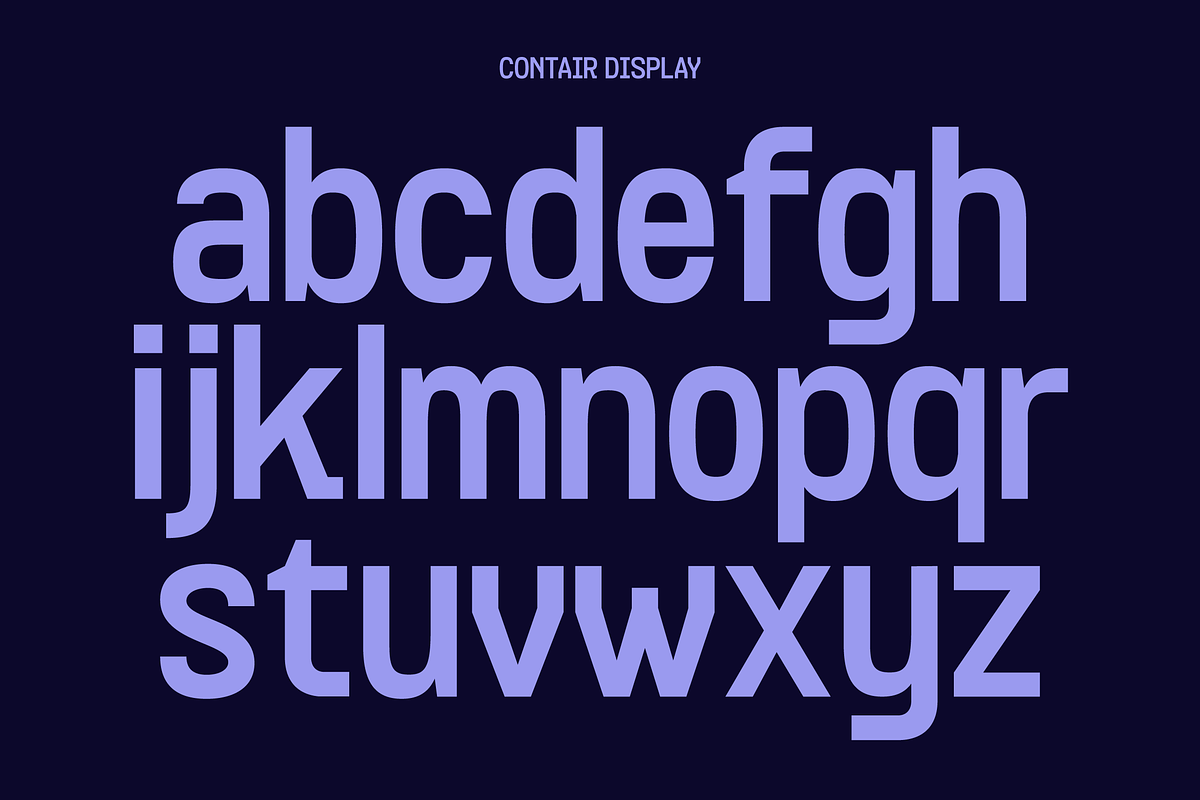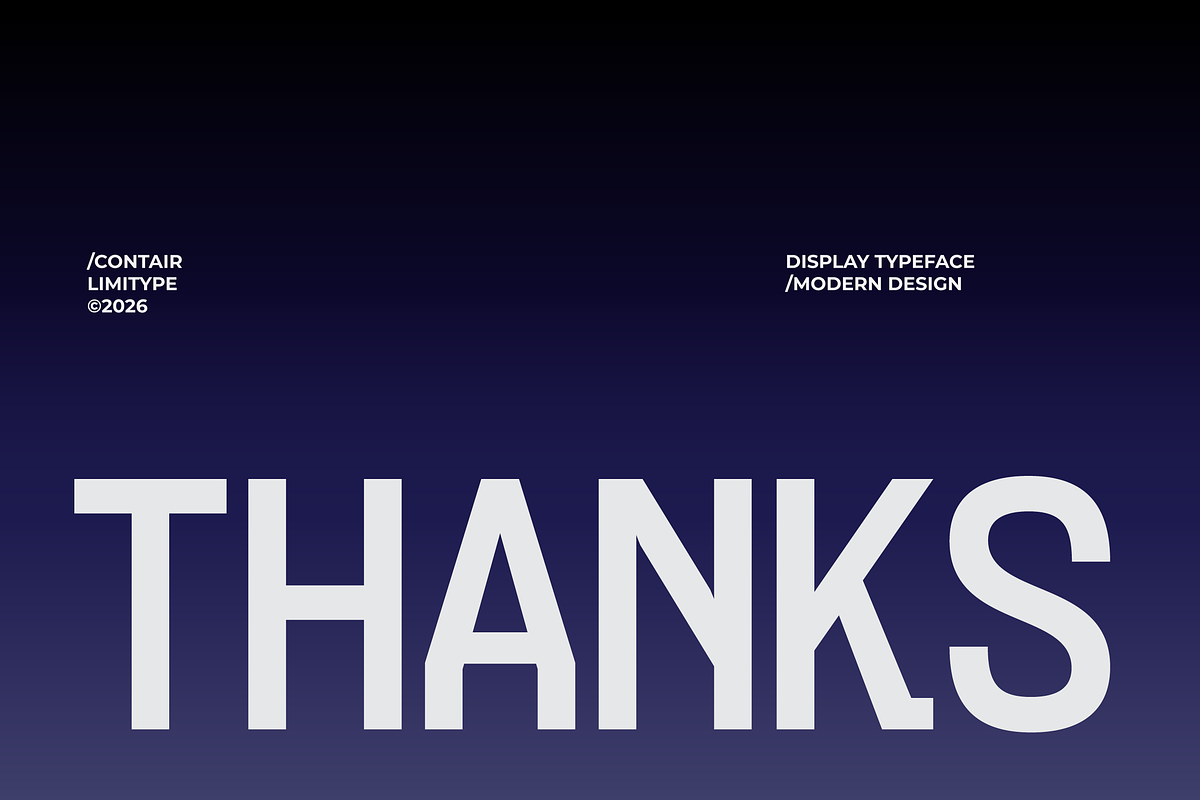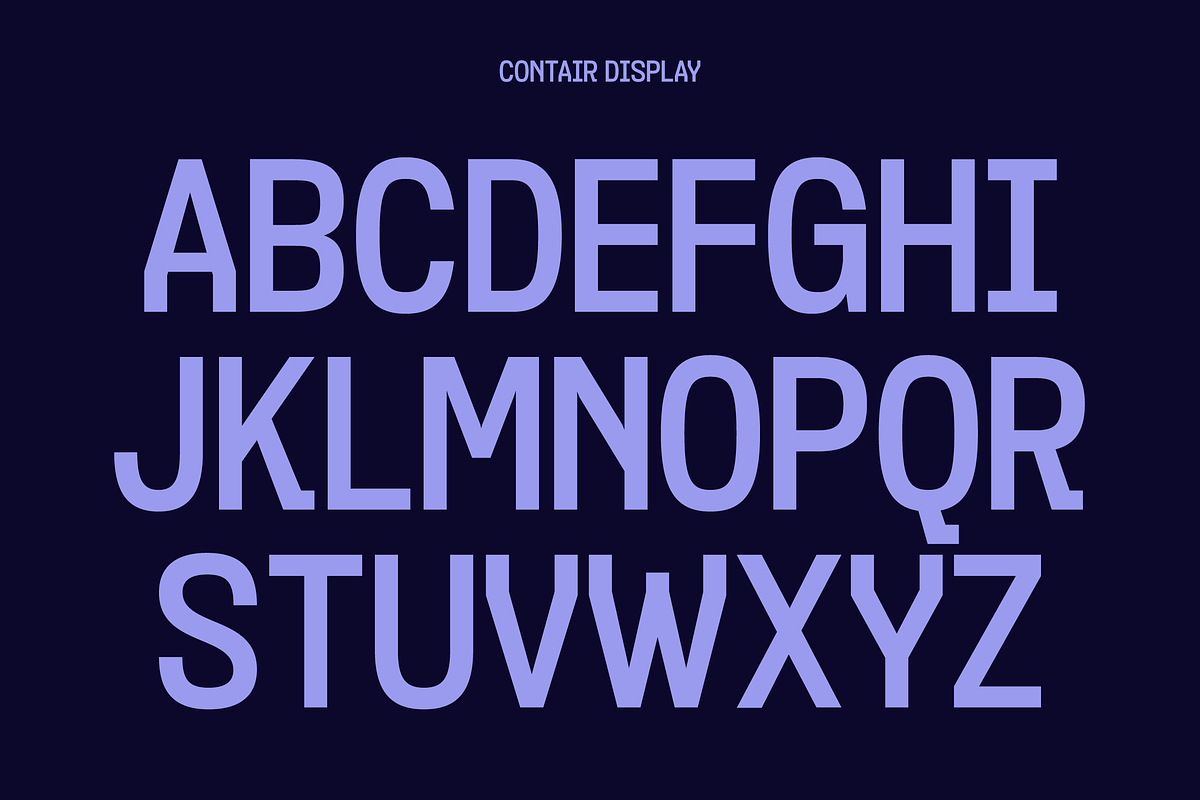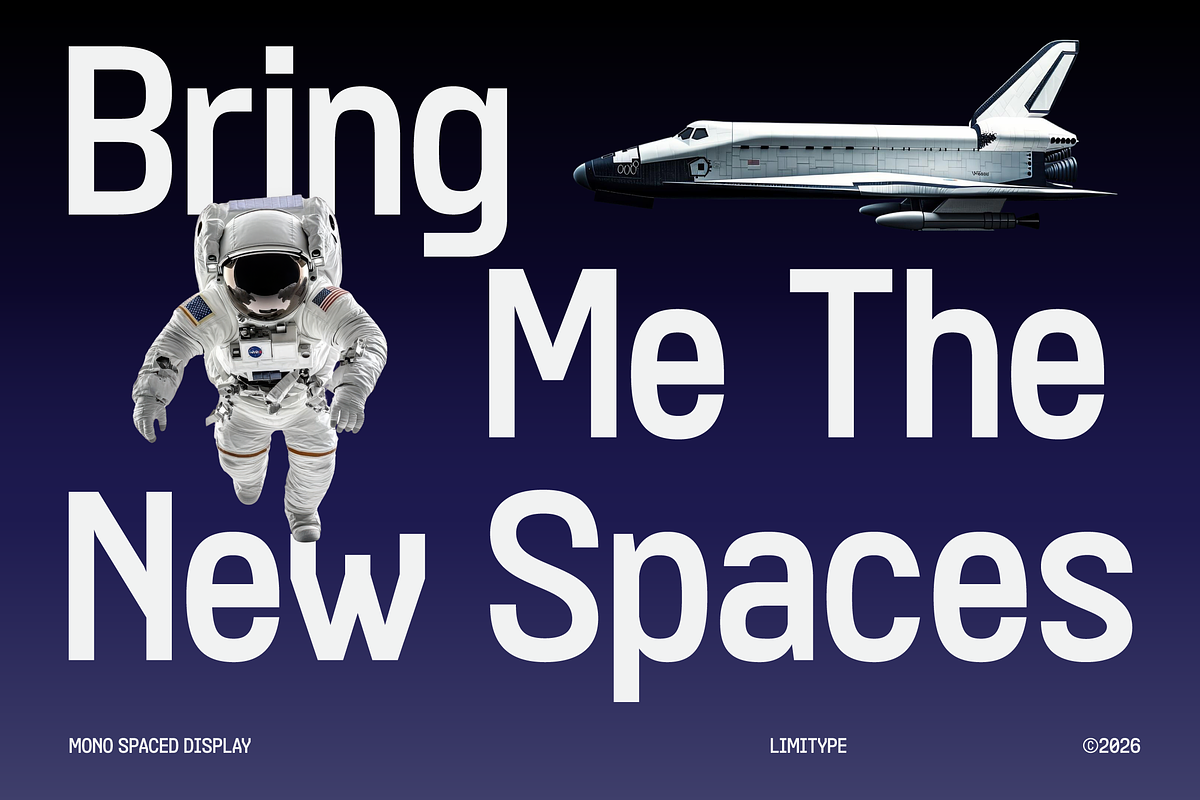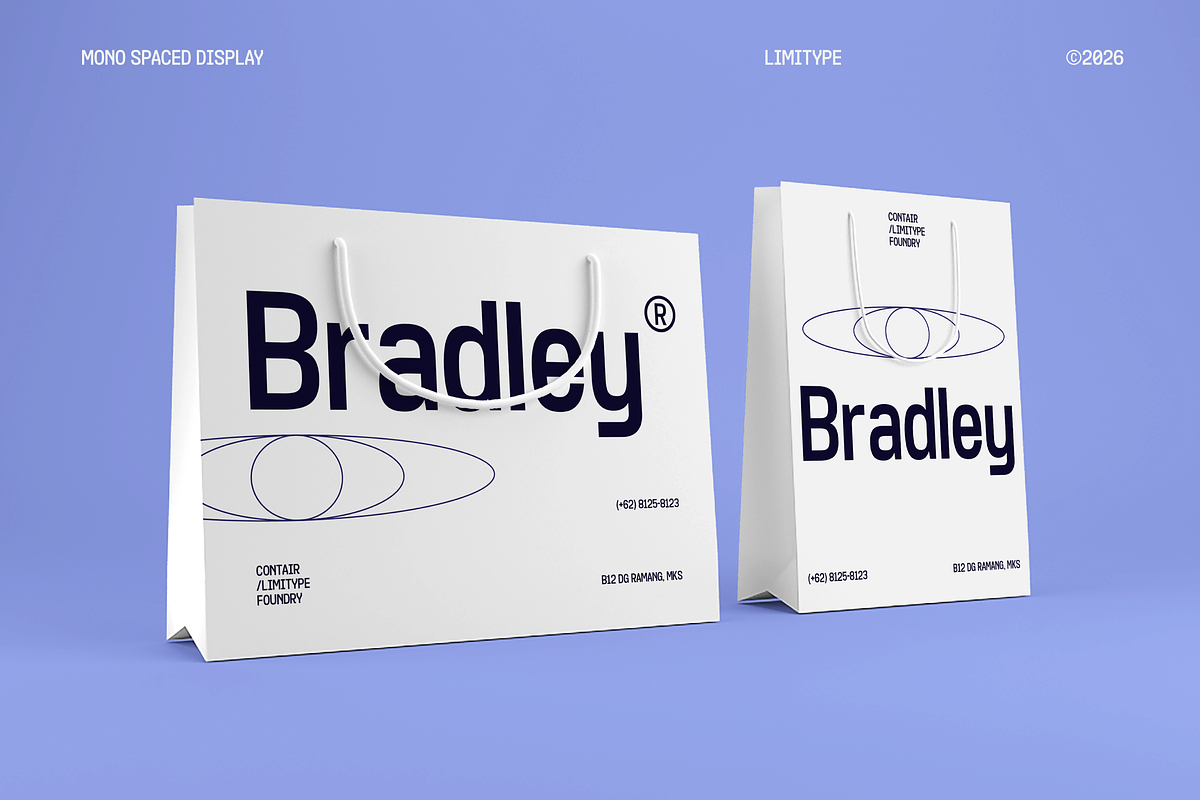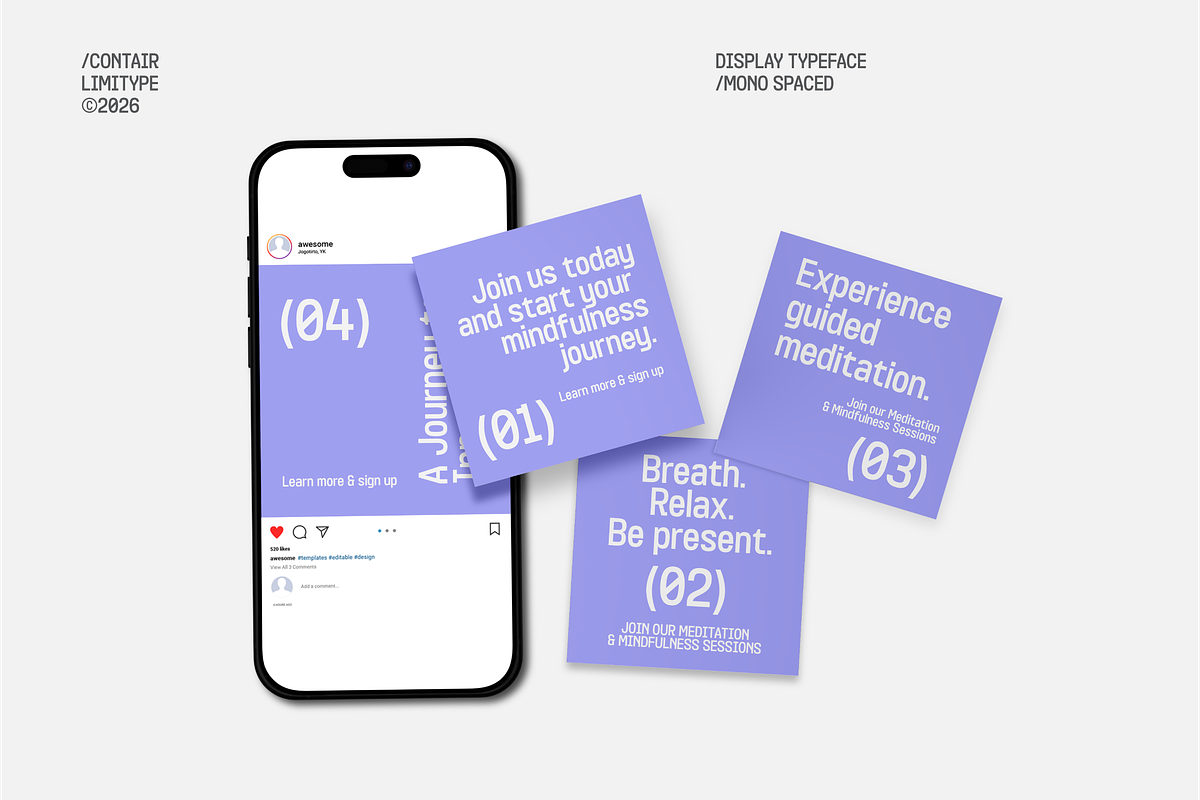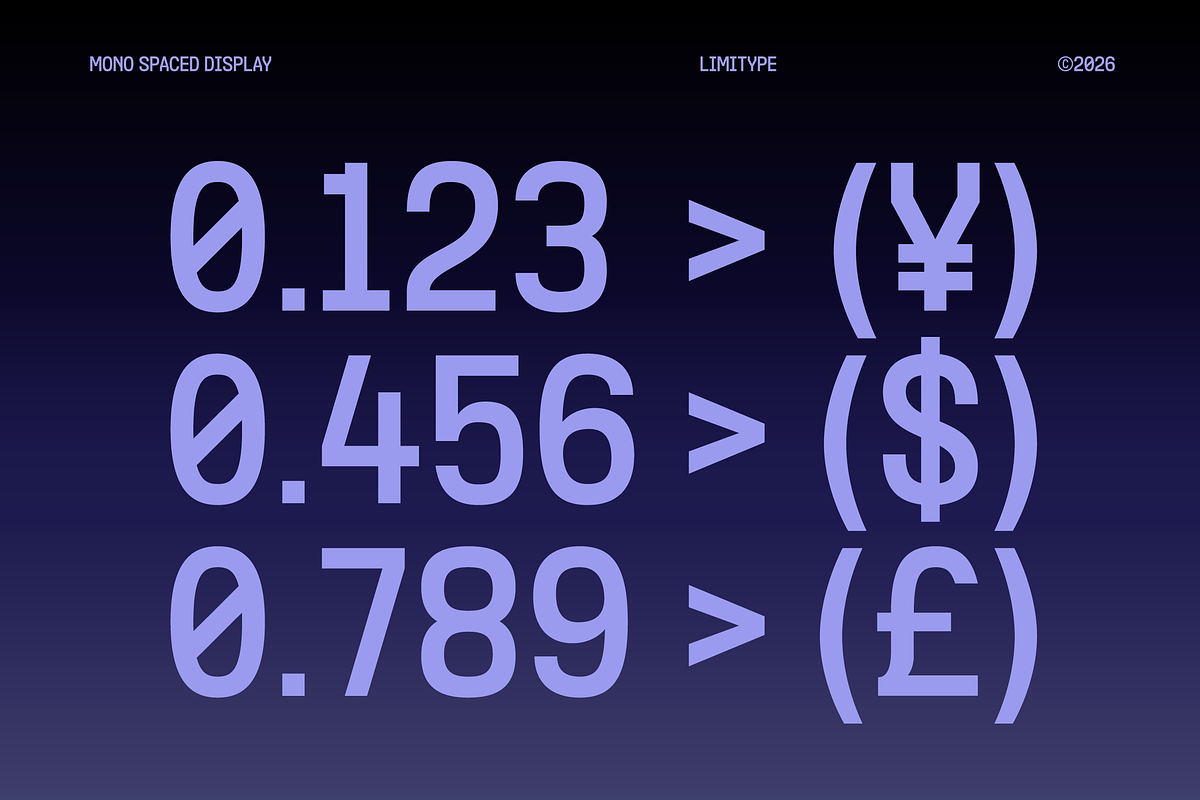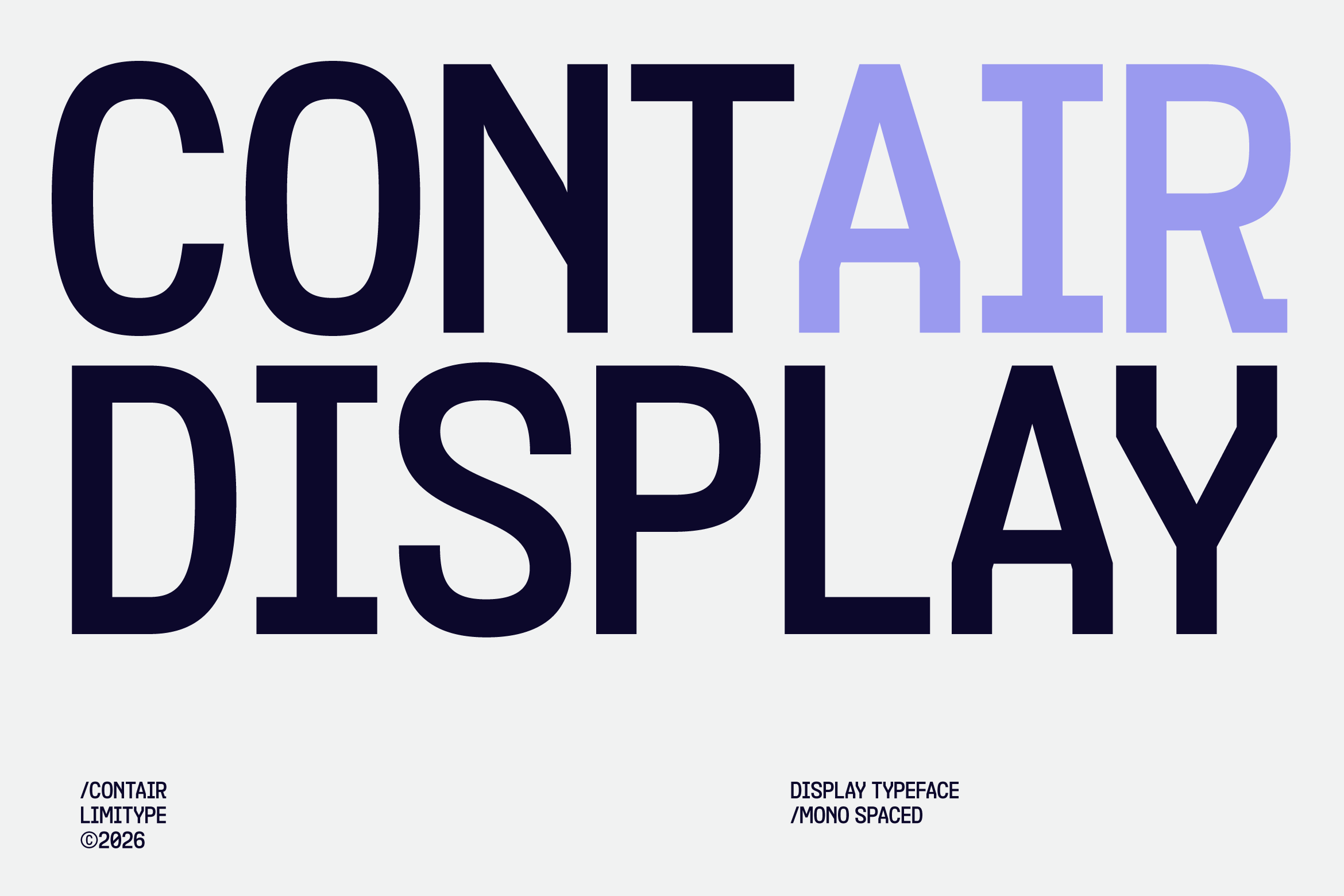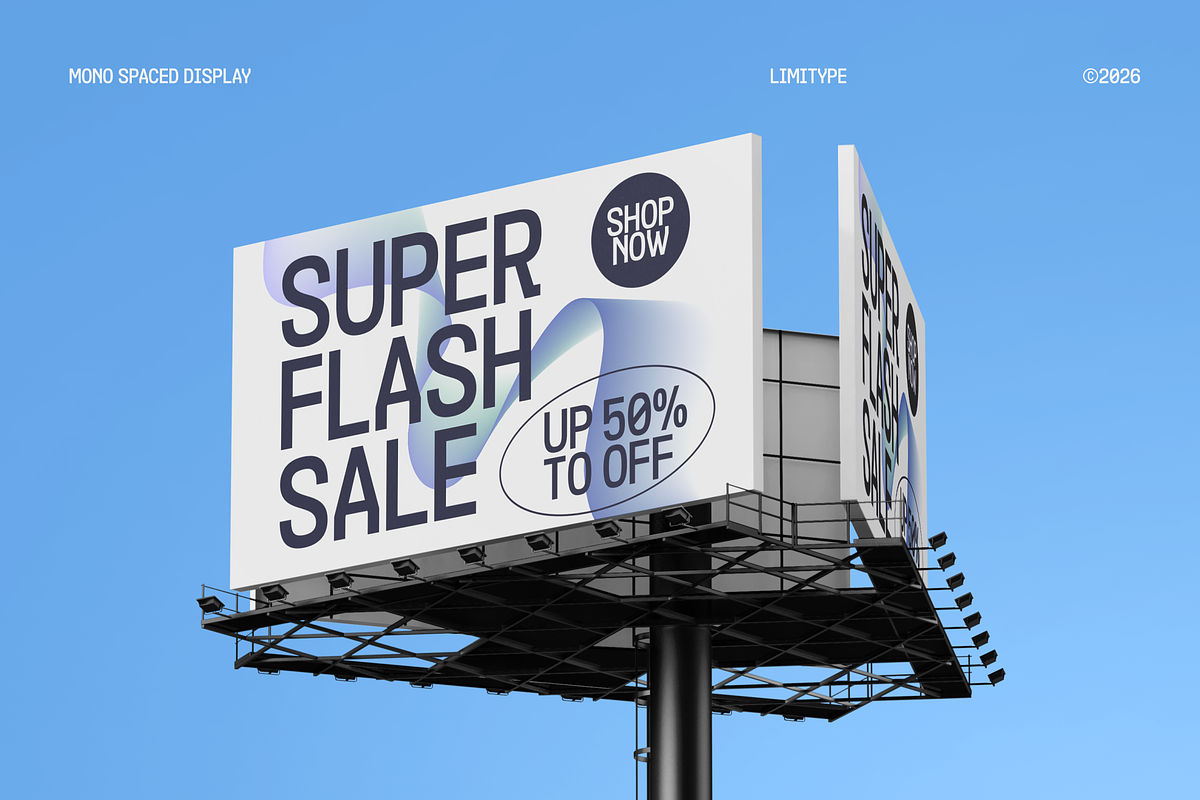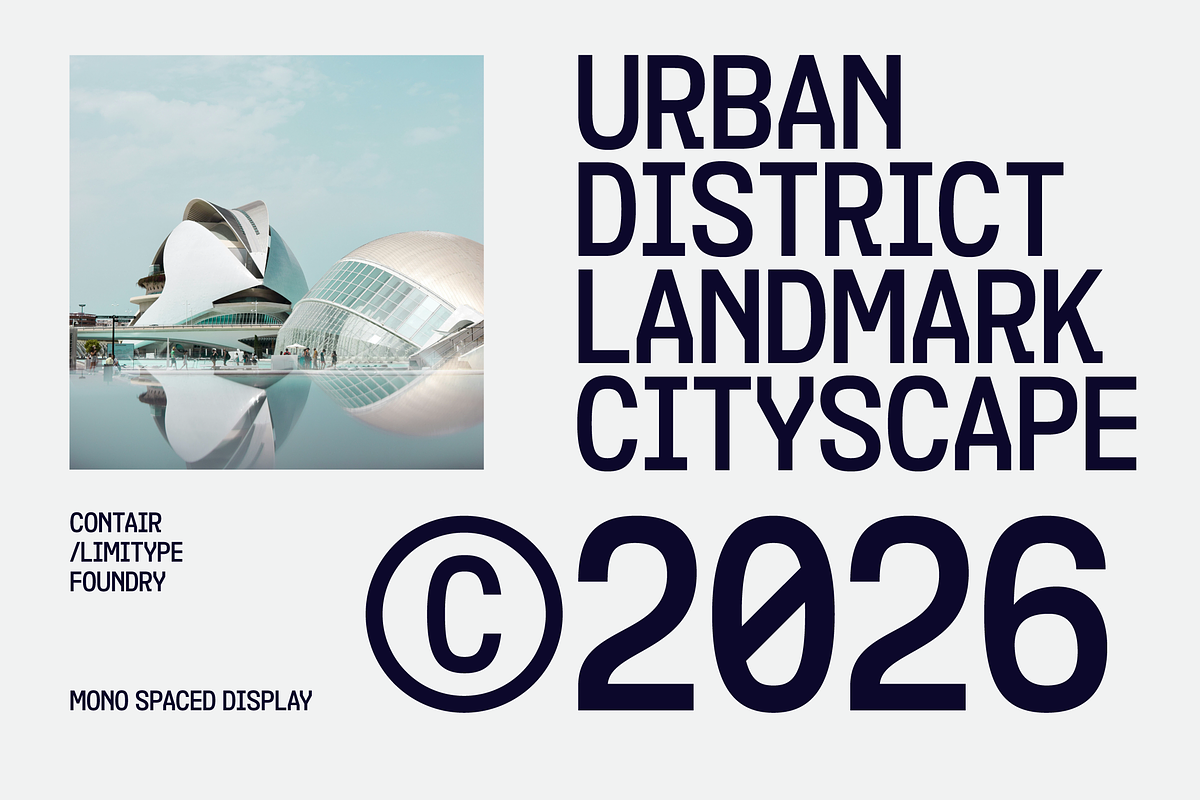
Contair - Monospaced Font
Contair is a modern monospaced display font designed with a minimalist approach, delivering a clean, precise, and highly structured visual aesthetic. Its consistent spacing and geometric form create a technical yet elegant appearance, making it ideal for branding, editorial layouts, digital interfaces, posters, and contemporary visual identities.